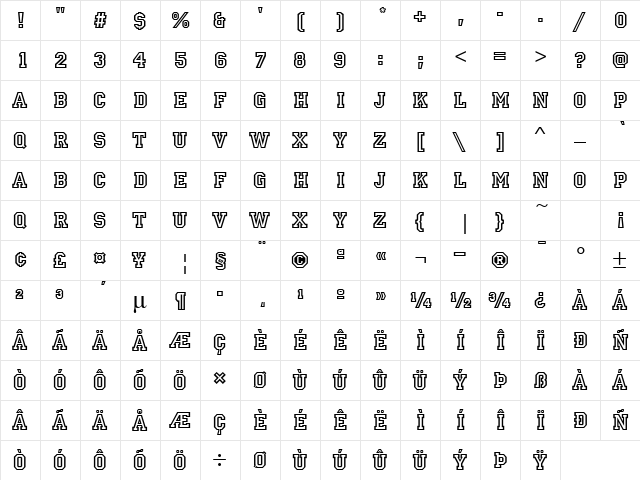
Princetown ICG Regular
Design Context for Princetown ICG Typeface
Princetown ICG takes a measured approach to typography — its balanced proportions and neutral character make it a reliable workhorse for both digital and print work.